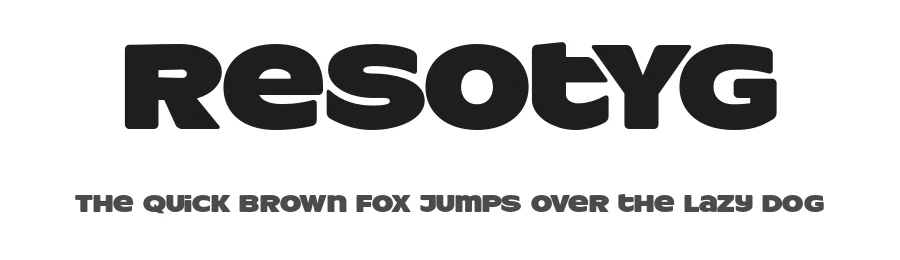
About ResotE Font
ResotE-Pastels family was created inspired by the poetry of natural colors: the elegance of Pearls and romanticism of Lavender. Fully vector color Letters allow you to create any size headers, banners or advertising slogans. Because of the predefined pastel colors, of course, fonts work best on darker backgrounds. Automatic contextual alternates and ligatures built into the fonts compensate for whitespace area differences. Normal TTF ResotE (AllCaps) font is included in the package, which allows you to create text in smaller sizes in style of the ResotE family.
ResotE Font